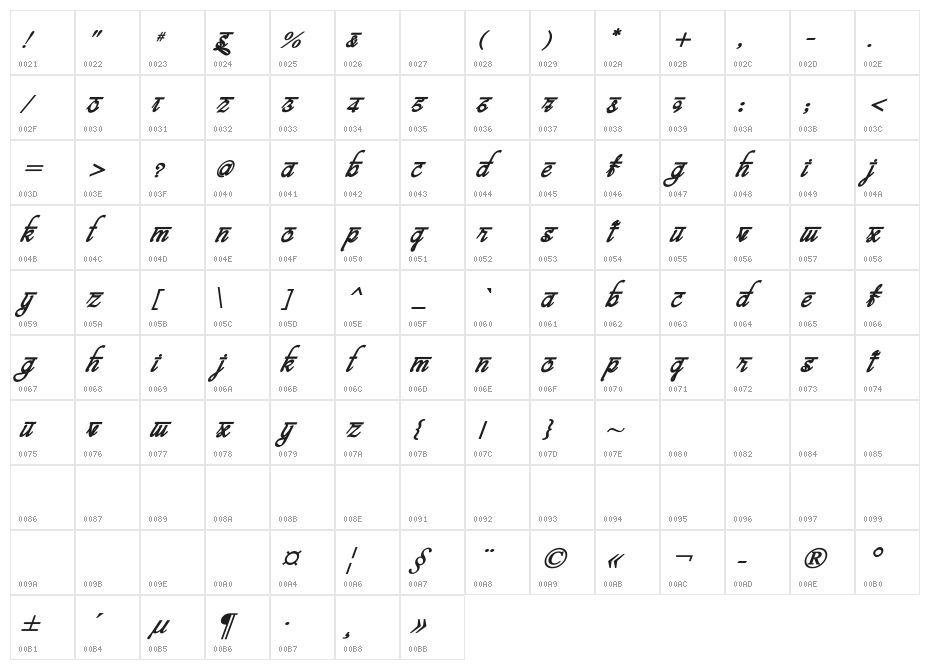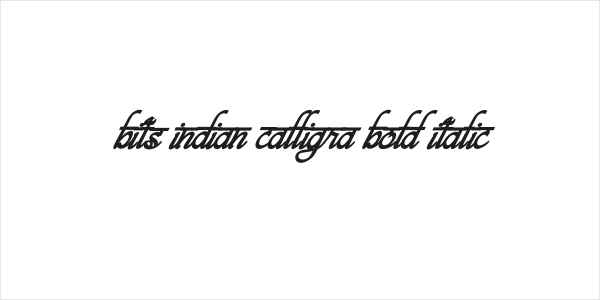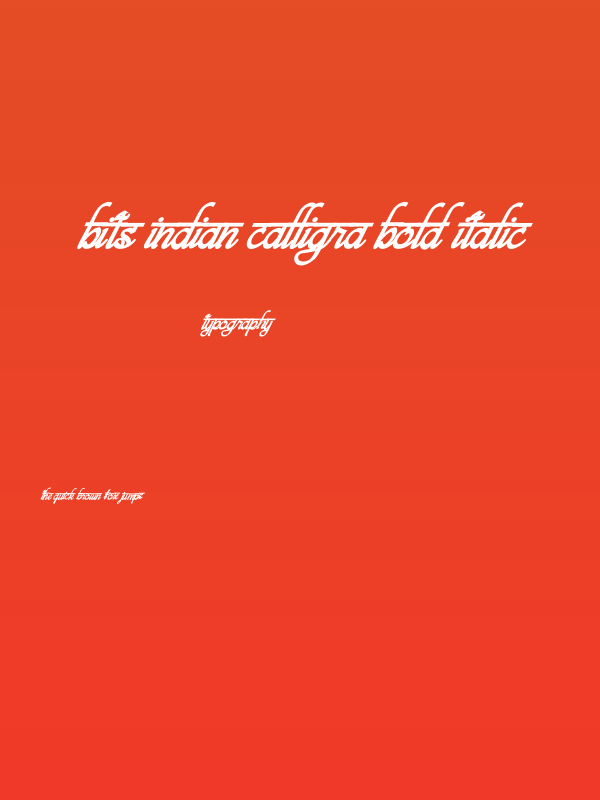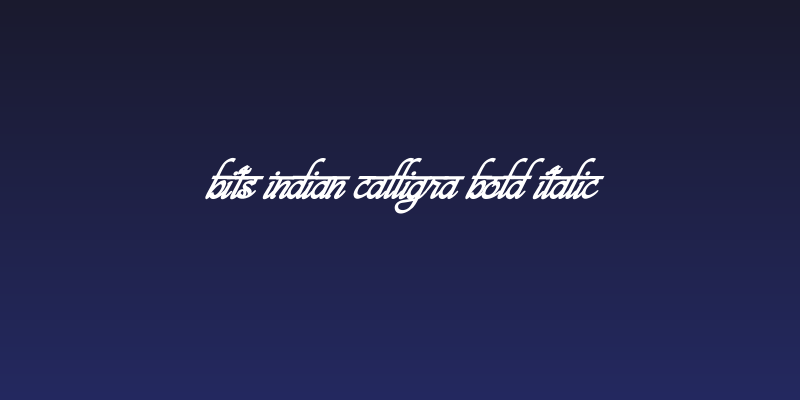
bits indian calligra Bold Italic Font
bits indian calligra Bold Italic Description
This font exhibits a bold and italicized calligraphic style, characterized by fluid, cursive strokes that convey a sense of elegance and sophistication. The letters are interconnected, creating a seamless flow that enhances readability while maintaining an artistic flair. The uppercase and lowercase letters maintain a consistent style, with the uppercase letters slightly larger and more pronounced. The numerals and special characters are designed to complement the overall aesthetic, ensuring uniformity across all text elements. The font's bold weight adds emphasis and presence, making it suitable for impactful designs.
| Proposed Projects | Ideal for wedding invitations, elegant branding, artistic posters, and decorative headings. |